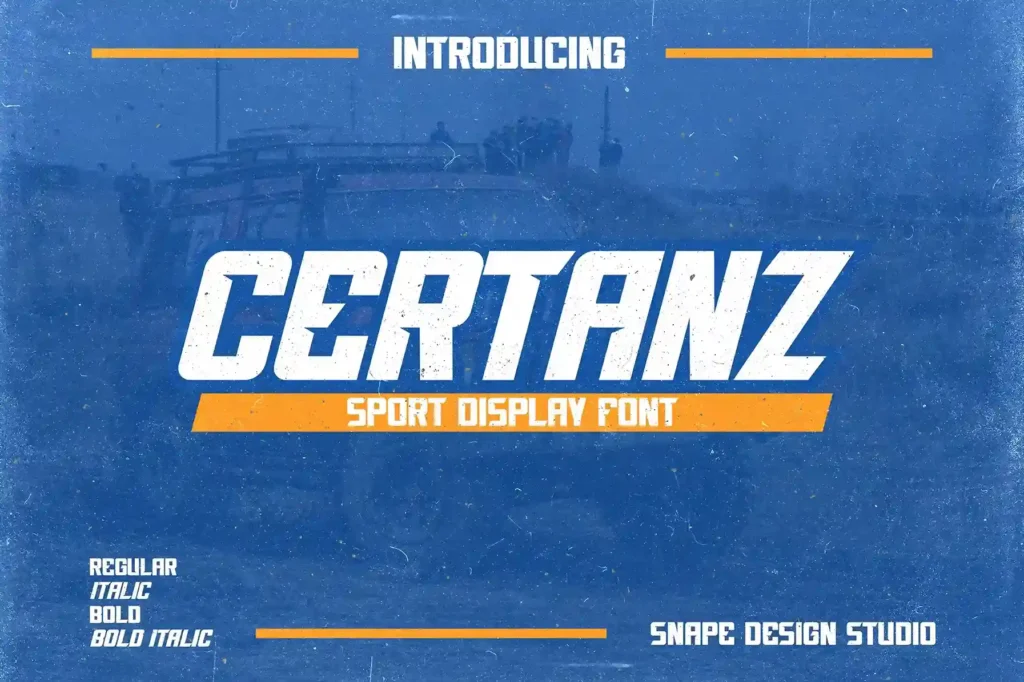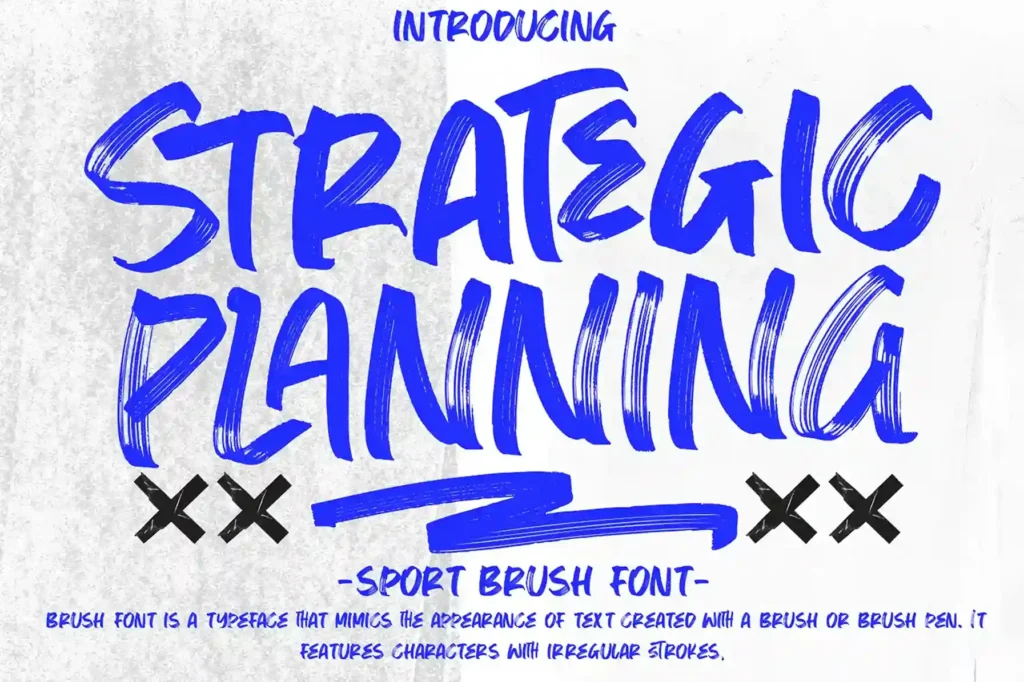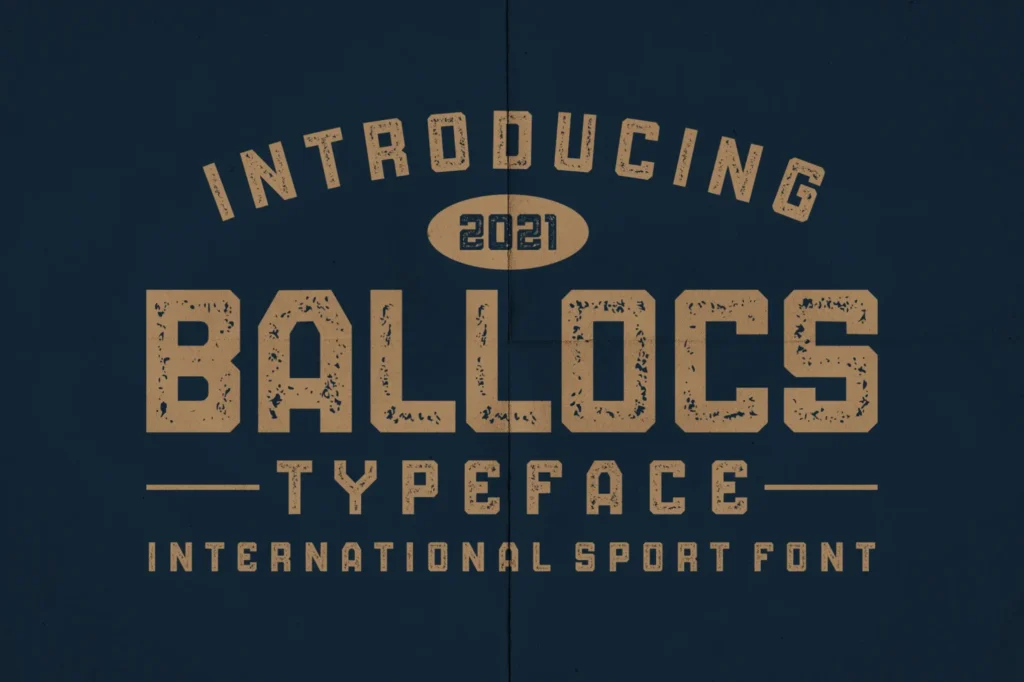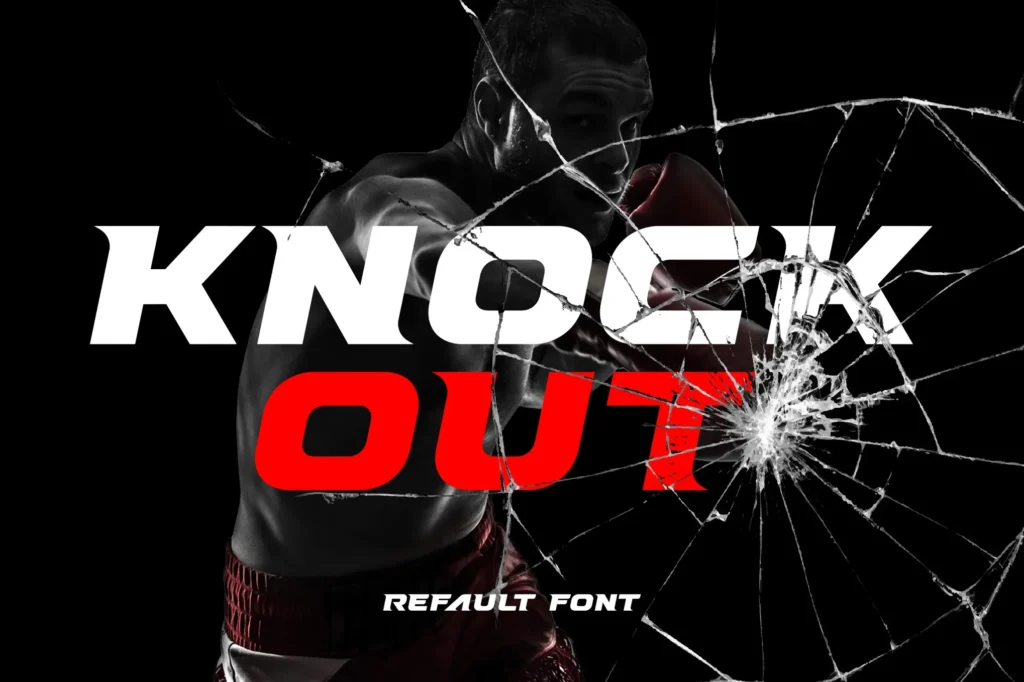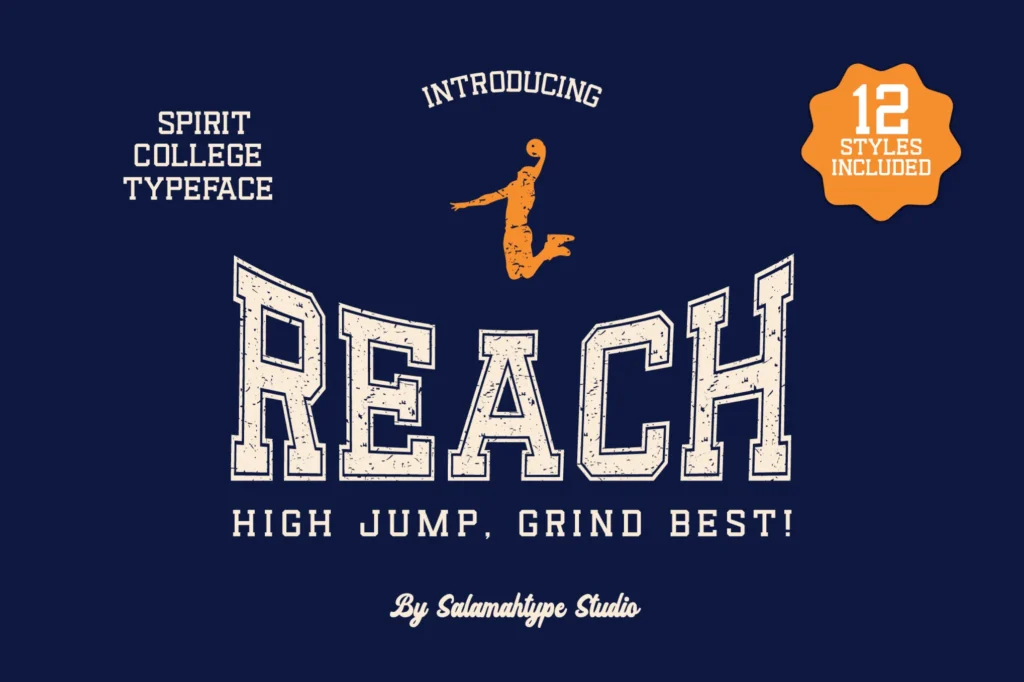
10 Sports Fonts to Kick-Off Your Sports Design
Fonts play a huge role in sports design, setting the mood, boosting energy and creating a lasting impression that fans recognize and connect with. From the bold lettering on team jerseys to the sleek typefaces used by top sports brands like Nike, typography is at the heart of sports identity. The right font can create a strong sense of team spirit, increase fan loyalty and strengthen brand identity. Just think of the iconic fonts used by the NFL or Nike – they instantly bring a sense of energy, excitement and power, capturing the true essence of sports.
In this guide, you’ll explore how to use impactful fonts to elevate your sports designs, whether you’re working on a team logo, promotional material, or merchandise. Discover the top 10 sports fonts that will take your designs to the next level, making them memorable and resonant with fans everywhere!
The Psychology Behind the Sports Fonts
1. How Fonts Evoke Energy and Power
Sports fonts are often bold and angular to signify strength, speed, and passion. This style gives off an energetic vibe, ideal for the competitive spirit inherent in sports. These fonts don’t just look powerful – they feel powerful, making fans even more excited about the game or team.
2. Appealing to Different Fan Bases
Certain fonts cater to different types of fans:
• Youth-oriented fonts with a modern twist appeal to younger fans who want something fresh and edgy.
• Classic, script-style fonts might be more appealing for a family-friendly baseball game, creating a welcoming and traditional feel.
• Futuristic fonts are often used for sports like esports, reflecting the tech-driven and innovative nature of the game.
3. Associating Fonts with Specific Sports
Fonts create instant associations. For example:
• Script fonts are perfect for baseball teams, giving off a nostalgic feel.
• Angular, techy fonts work well for esports, making the sport feel high-tech and futuristic.
• Bold, distressed fonts are a good match for extreme sports, adding a rugged, adventurous touch.
Top 10 Sports Fonts for High-Impact Designs
Sports fonts are essential for creating unique, eye-catching designs that convey energy, passion, and brand identity. Whether it’s a gym logo, a basketball game poster, or merchandise for a sports team, choosing the right font can enhance the impact and excitement of your design. Here’s a detailed look at ten versatile sports fonts that can enhance your projects.
1. Reach – Sports Font
baseball themed sports font
• Designer: Salamahtype
• Best Uses: Baseball-themed designs, team logos, sports branding, merchandise
• Features: All uppercase, display font
The Reach font by Salamahtype is a bold, display font with a distinctive, athletic look that’s perfect for baseball-themed designs. With its all-uppercase format, Reach projects strength and confidence, making it ideal for team logos, sports merchandise, and baseball posters. The font’s straightforward, blocky letterforms communicate a sense of power and teamwork, which makes it a great choice for sports teams and events aiming to convey unity and strength. Reach works well for bold headlines, branding, and other display uses where a strong, impactful typeface is essential.
2. Certanz – Sport Font
font suitable for Football and gym branding, sportswear logos, gym posters, sports event banners
• Designer: Snapedsgn
• Best Uses: Football and gym branding, sportswear logos, gym posters, sports event banners
• Features: Uppercase and lowercase
Certanz by Snapedsgn is a versatile sports font designed to capture the energy of football and gym environments. With both uppercase and lowercase options, Certanz allows for flexibility across various applications, from bold titles to detailed product descriptions. Its muscular, sharp edges convey strength, making it ideal for sportswear branding, team logos, and motivational posters in gym settings. Certanz is especially suited for football branding, where it brings out the intensity and power of the game.
3. Grandex – Sport Baseball Display Font
font suitable for Baseball team logos, jerseys, sports branding, promotional material
• Designer: Dharmasstudio
• Best Uses: Baseball team logos, jerseys, sports branding, promotional material
• Features: Uppercase only
The Grandex font by Dharmasstudio offers a timeless, classic style perfect for baseball-inspired designs. This all-uppercase font captures the nostalgic feel of baseball while maintaining a bold, impactful presence. Grandex works best for baseball team logos, jerseys, and signage. Its strong, traditional style aligns well with baseball’s rich history and fan loyalty, making it a favourite for vintage-style sports branding and posters. For designers aiming to evoke a sense of tradition and pride in their sports designs, Grandex is an excellent choice.
4. Gymer Sport Font
font suitable for Gym branding, esports logos, sports merchandise, motivational banners
• Designer: Alonkelakon